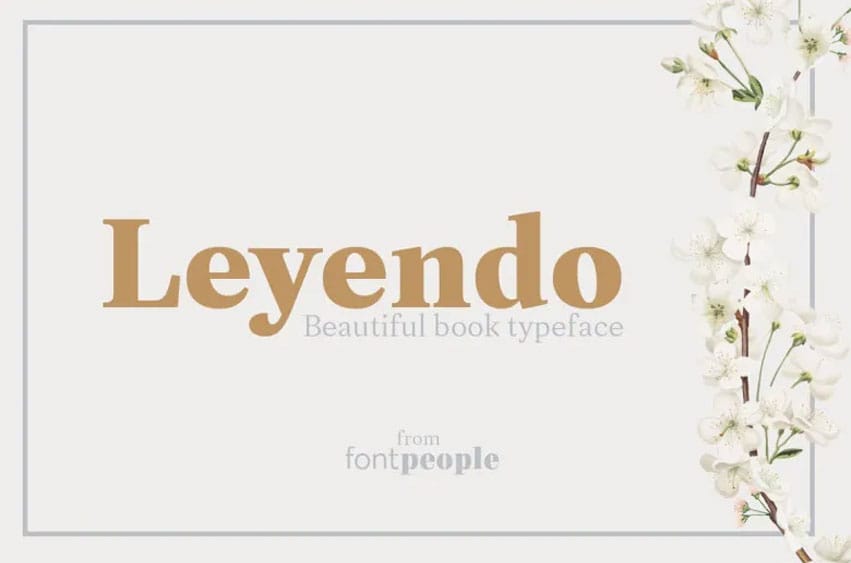
Leyendo Font Family is an elegant modern serif font, with roots in classic typography. Perfect for magazines and books alike, its softness and fluidity please the reader while its high intensity angle provides impressive typographic hierarchy in complex layout designs.
Leyendo can be utilized in environments where other elements of graphic design may coexist. Its self-aware design makes it seem appealing when tightly displayed.